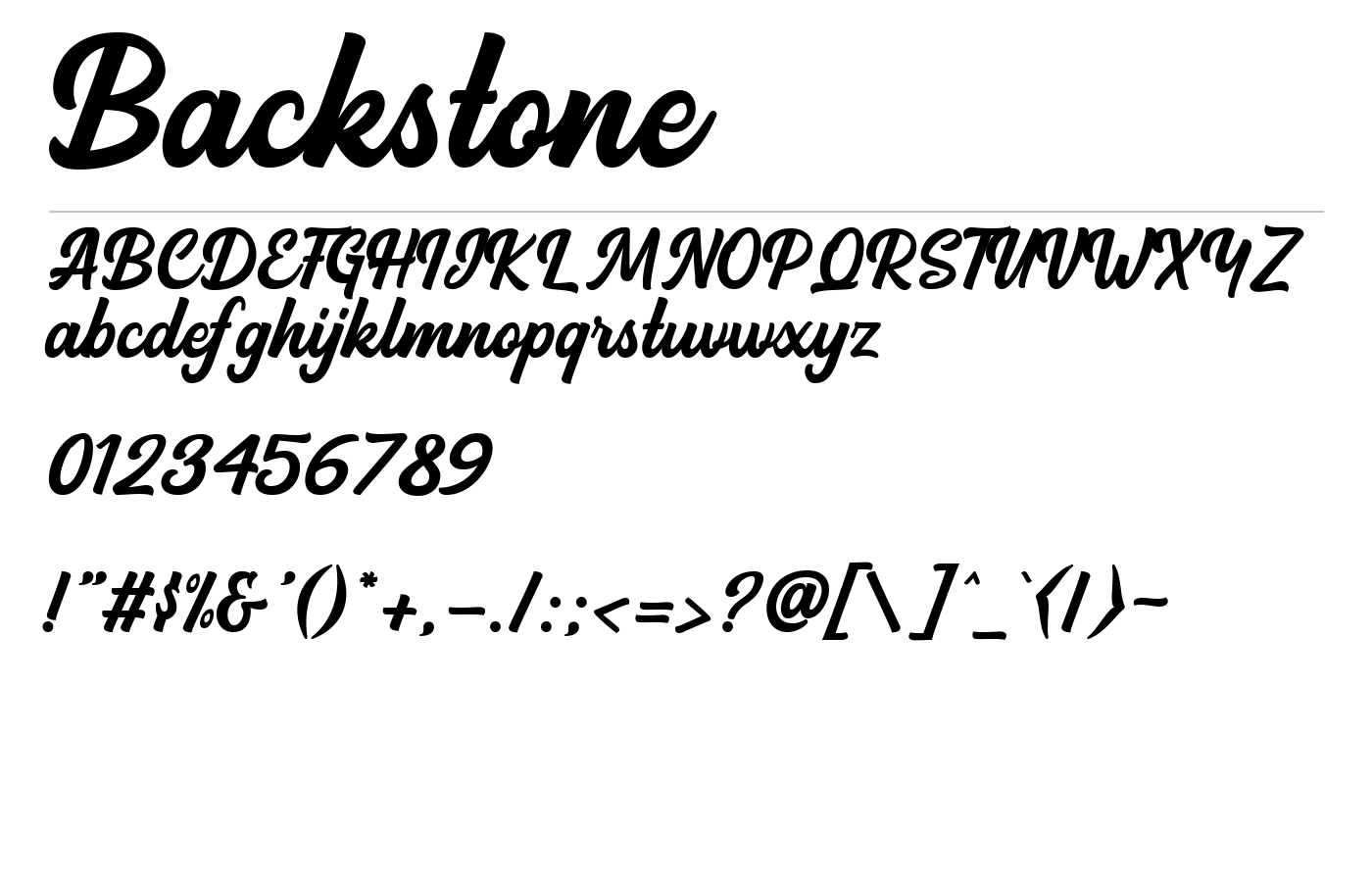
Backstone is a bold, script-style font with a smooth, flowing design that evokes a friendly and dynamic feel. Its moderately high x-height and slightly condensed letterforms make it both legible and stylish, perfect for eye-catching headlines, logos, and branding that call for a lively yet polished look. This font works well in contexts where personality and approachability are key, such as packaging, advertising, and creative editorial layouts.
Backstone Font
About Backstone Font
| Font family | Backstone Font |
| Designer | Dida Ahluddin |